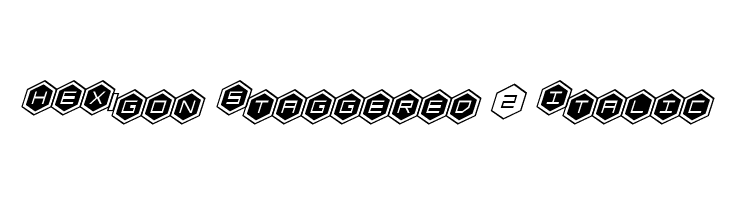
A geometric, angular font with a hexagonal theme, ideal for monograms and logos.
A bold, geometric font with characters enclosed in hexagons, offering a modern and futuristic style.